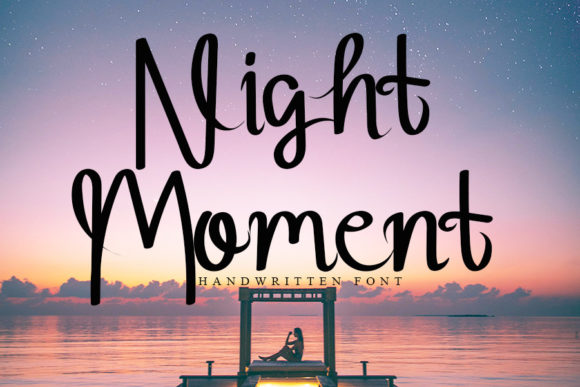
Embrace the unparalleled charm and elegance of Night Moment, a mesmerizing handwritten font that evokes a sense of timeless beauty. Step into a world of visual enchantment with this carefully crafted masterpiece, designed to elevate your creative projects to new heights.
Indulge in the delicate strokes and graceful curves that define Night Moment. Its enchanting script style adds a touch of sophistication and flair to any design, whether you're crafting heartfelt greeting cards, enchanting invitations, or eye-catching social media posts. With its remarkable versatility, Night Moment seamlessly complements various design aesthetics, from classic and vintage to modern and minimalist.
Immerse yourself in the creative possibilities that await you with Night Moment. Unleash your imagination and create stunning logos, captivating branding materials, and personalized gifts that leave a lasting impression. Its effortless charm transforms ordinary words into captivating expressions, adding a touch of magic to every project.
Key features of Night Moment:
- Handwritten script style
- Delicate and elegant strokes
- Simple and easy to use
- Versatile, complements various design aesthetics
- Perfect for crafting greeting cards, invitations, social media posts, logos, branding materials, and personalized gifts